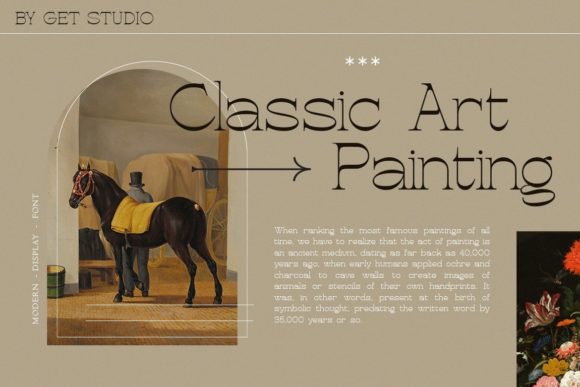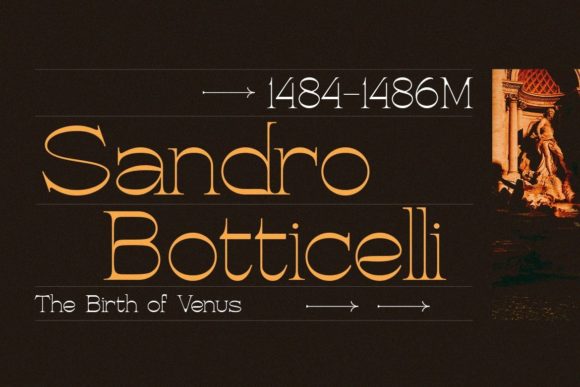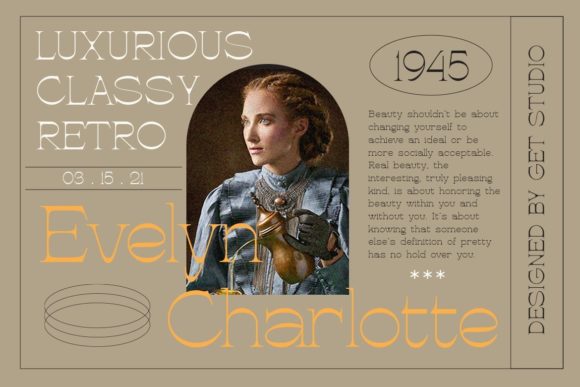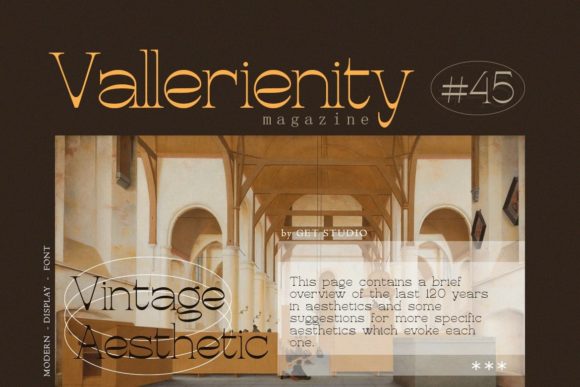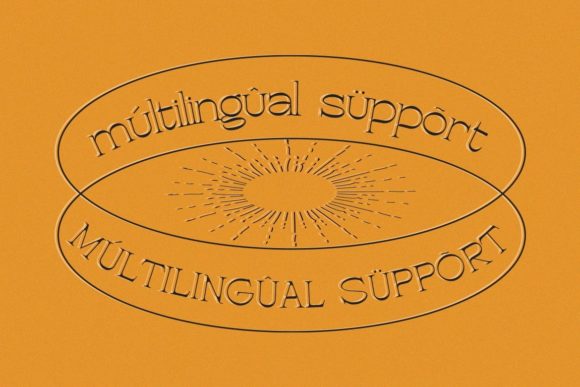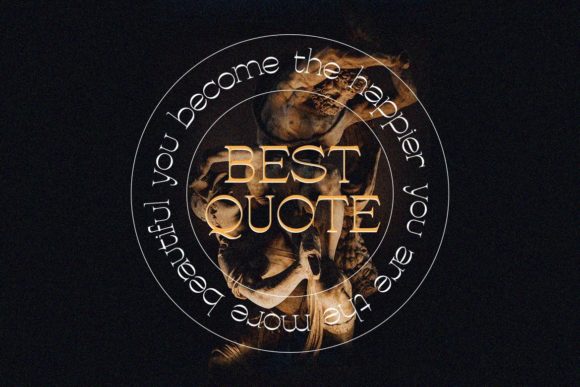
Introducing Ceone Font: Elevate Your Designs with a Touch of Elegance
Are you on the hunt for a font that exudes sophistication, modernity, and a dash of elegance? Look no further than Ceone Font. This stunning, thin serif font is designed to make your creative projects stand out from the crowd. With its sleek lines and refined aesthetic, Ceone is the perfect addition to any designer’s toolkit.
The Characteristics of Ceone Font
Ceone Font boasts a range of characteristics that make it an ideal choice for designers and crafters. Here are just a few of its standout features:
- Fancy and Modern: Ceone’s sleek, contemporary design ensures that your projects look fresh and up-to-date.
- Thin Serif: The font’s delicate serifs add a touch of sophistication and elegance, making it perfect for projects that require a refined aesthetic.
- Versatile: Ceone can be matched to an incredibly large set of projects, from luxury branding to elegant stationery, and everything in between.
Why Choose Ceone Font?
So, why should you choose Ceone Font for your next project? Here are just a few compelling reasons:
- Unparalleled Versatility: Ceone’s versatility means that it can be used in a wide range of projects, from editorial design to web design, and even crafting.
- Elegant Aesthetic: The font’s refined, elegant aesthetic ensures that your projects look professional and sophisticated.
- Easy to Read: Despite its delicate lines, Ceone is surprisingly easy to read, making it perfect for body text and headlines alike.
Using Ceone Font in Your Designs
So, how can you use Ceone Font in your designs? Here are a few ideas to get you started:
- Luxury Branding: Use Ceone to create stunning luxury brand identities that exude elegance and sophistication.
- Elegant Stationery: Add a touch of refinement to your stationery designs with Ceone’s delicate, serif lines.
- Editorial Design: Use Ceone to create beautiful editorial designs, from magazine layouts to book covers.
- Web Design: Ceone’s clean lines and elegant aesthetic make it perfect for web design, from headers to body text.
Tips for Pairing Ceone Font with Other Fonts
While Ceone Font is stunning on its own, it can also be paired with other fonts to create a unique and eye-catching aesthetic. Here are a few tips for pairing Ceone with other fonts:
- Pair with Bold Fonts: Pair Ceone with bold, sans-serif fonts to create a striking contrast.
- Combine with Script Fonts: Combine Ceone with elegant script fonts for a romantic, whimsical look.
- Match with Monoline Fonts: Match Ceone with monoline fonts for a clean, modern aesthetic.
In conclusion, Ceone Font is a stunning, thin serif font that is sure to elevate your designs to the next level. With its elegant aesthetic, versatility, and ease of use, Ceone is the perfect addition to any designer’s toolkit. Whether you’re a seasoned pro or just starting out, Ceone Font is sure to inspire your creativity and help you create stunning designs that stand out from the crowd.